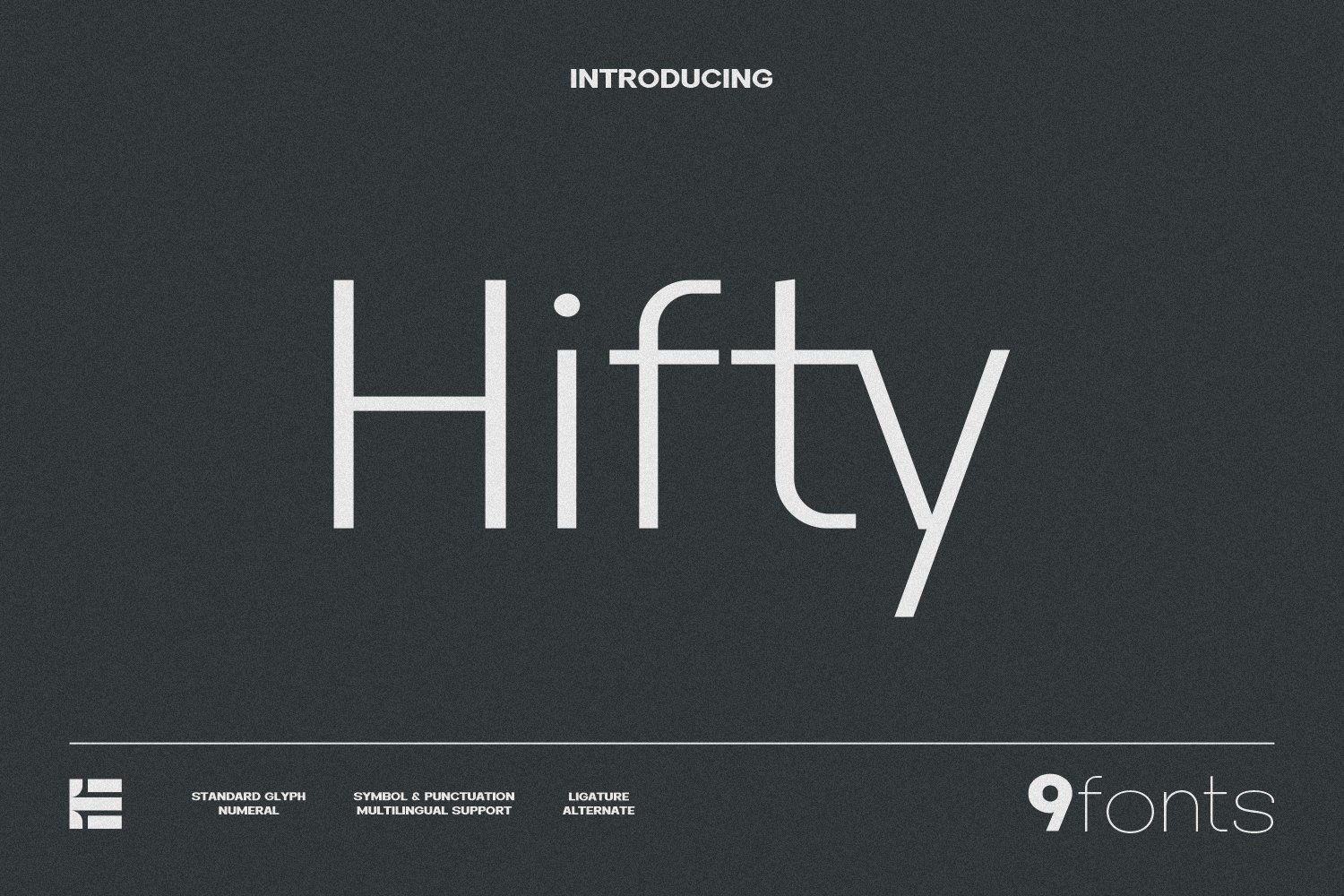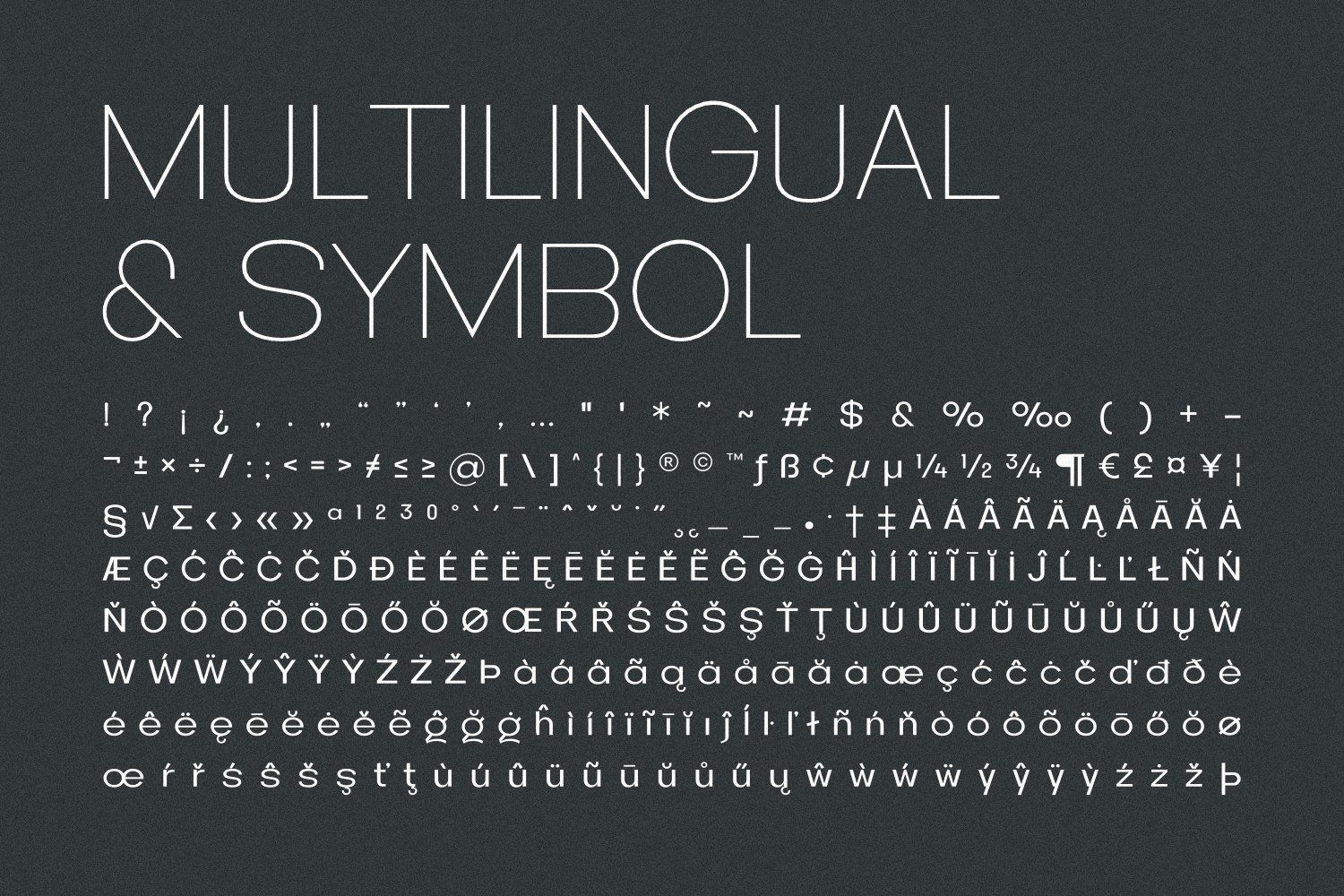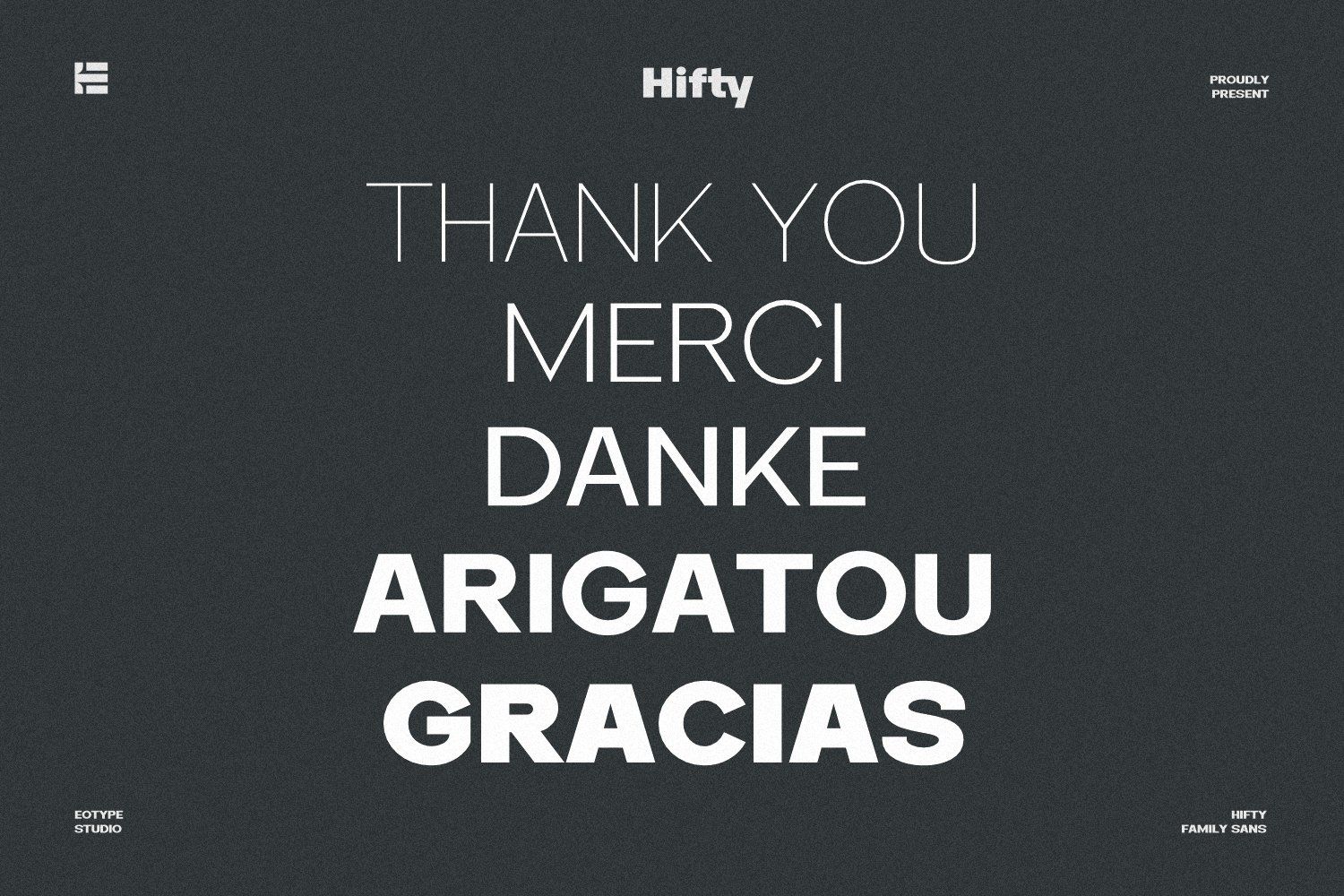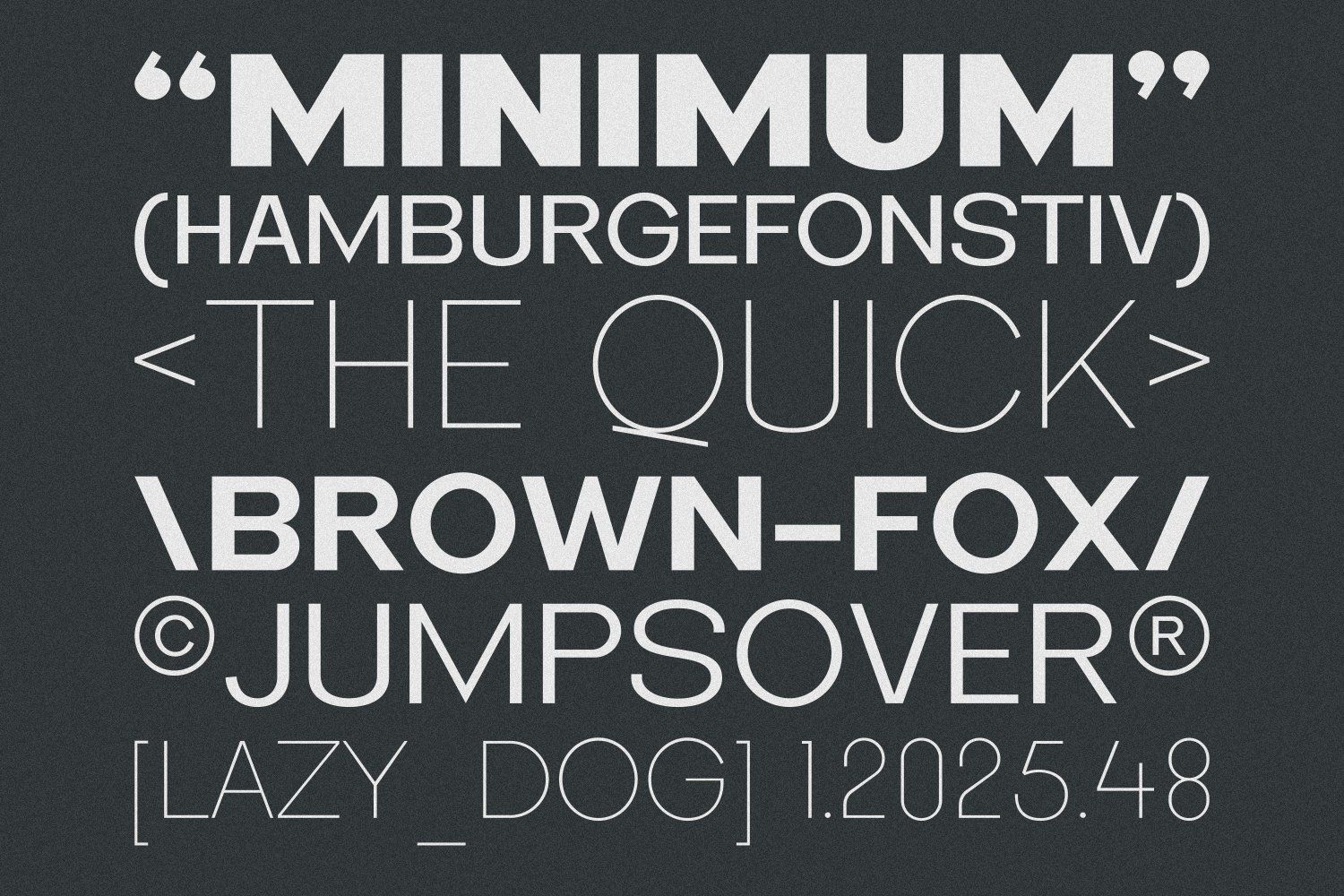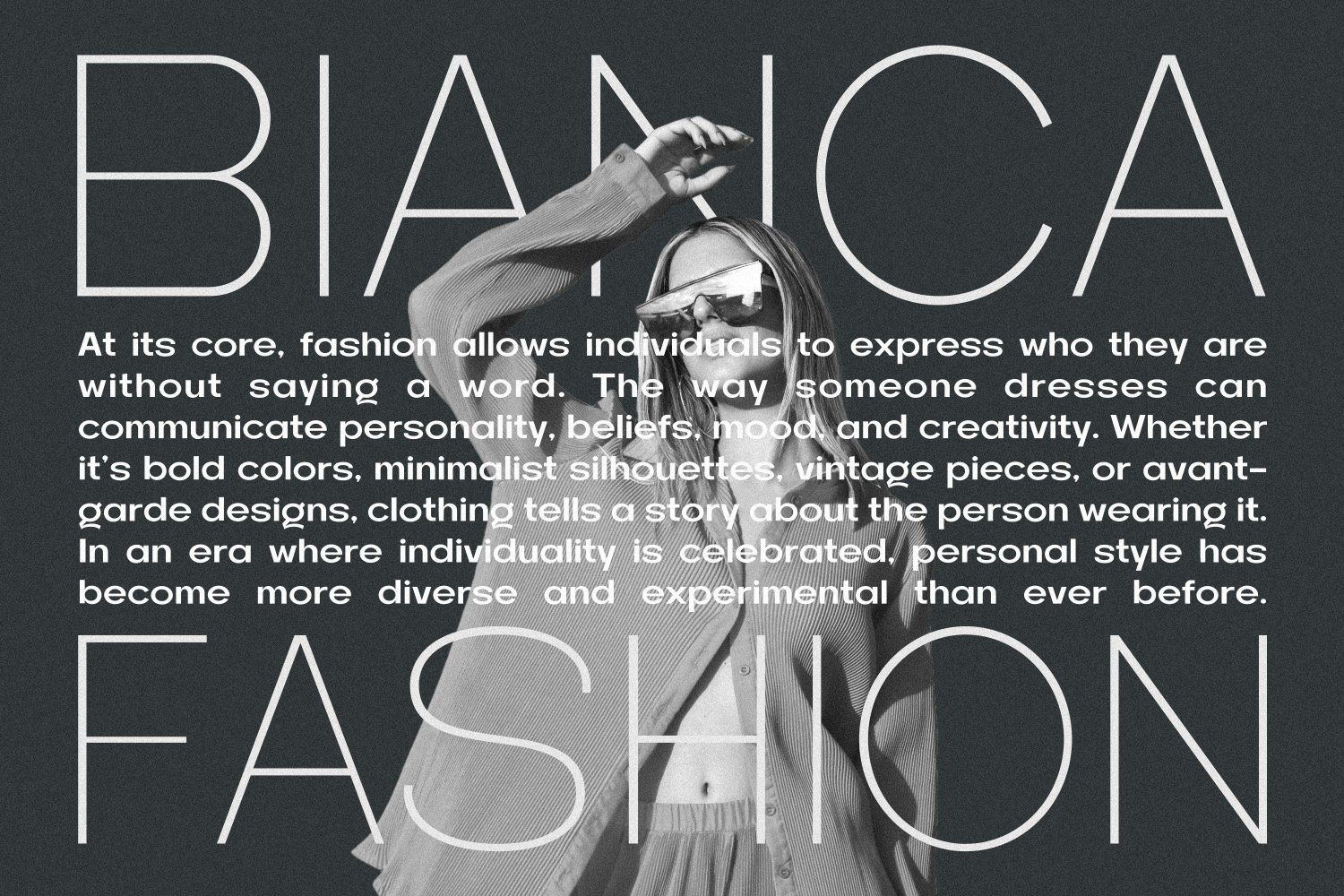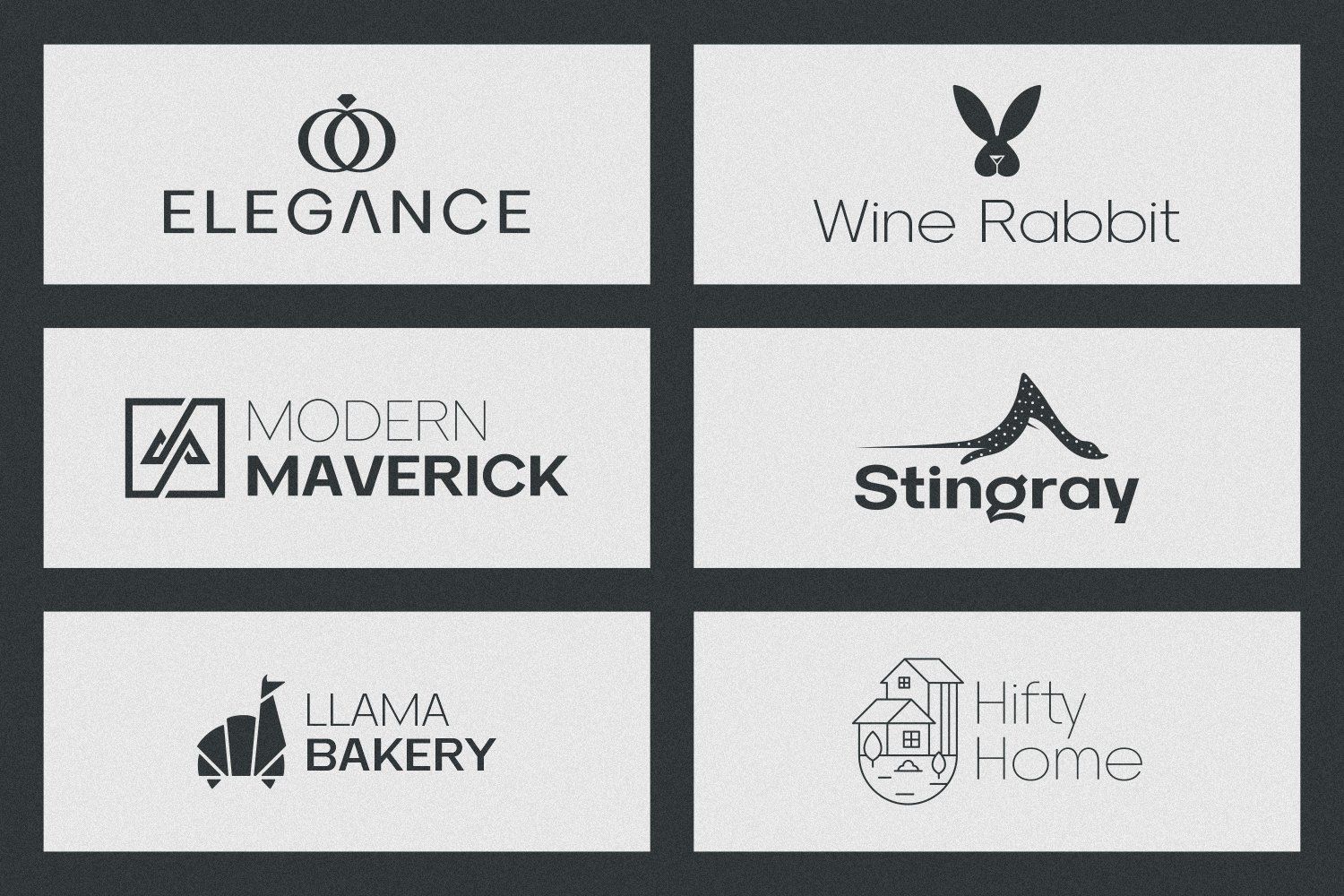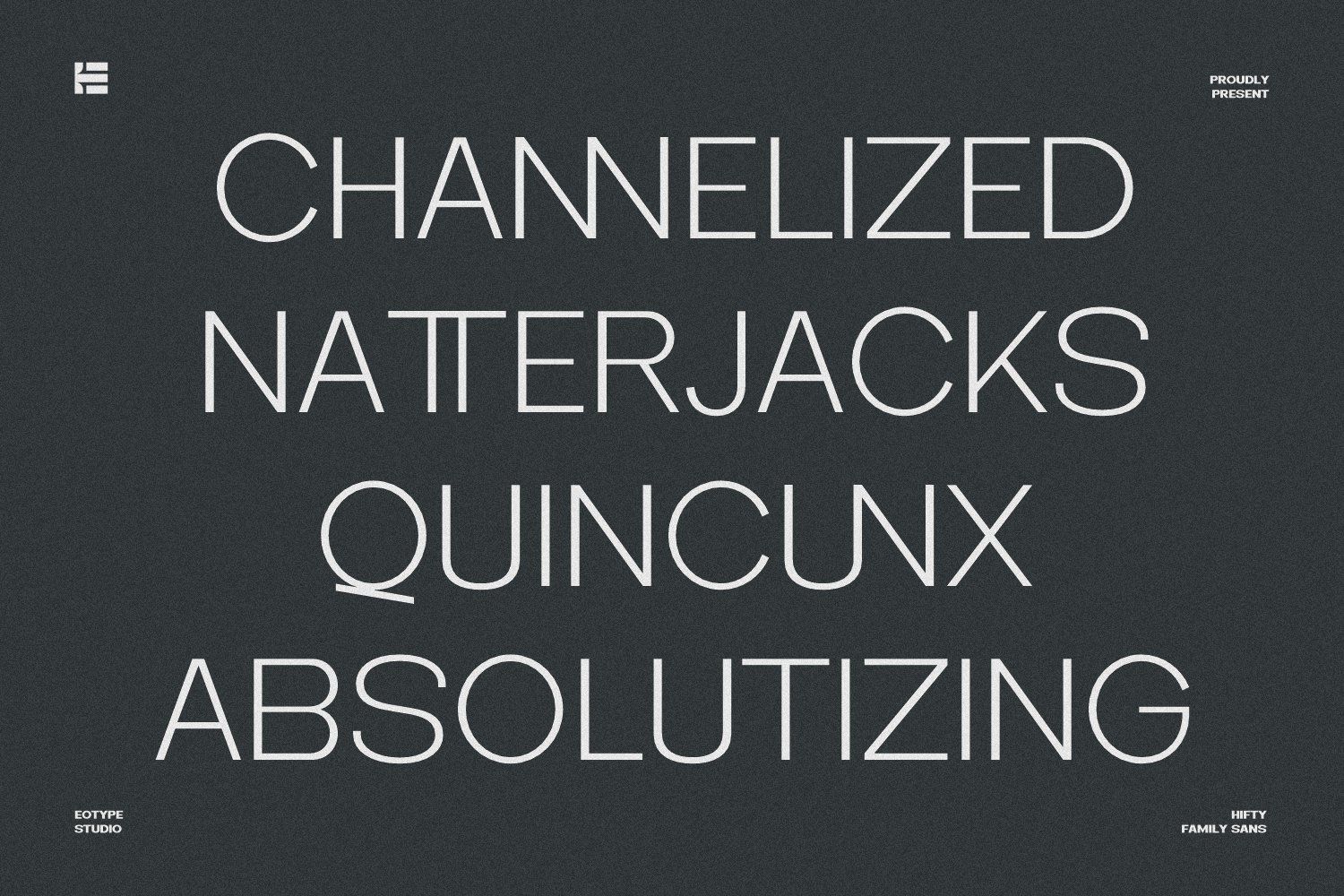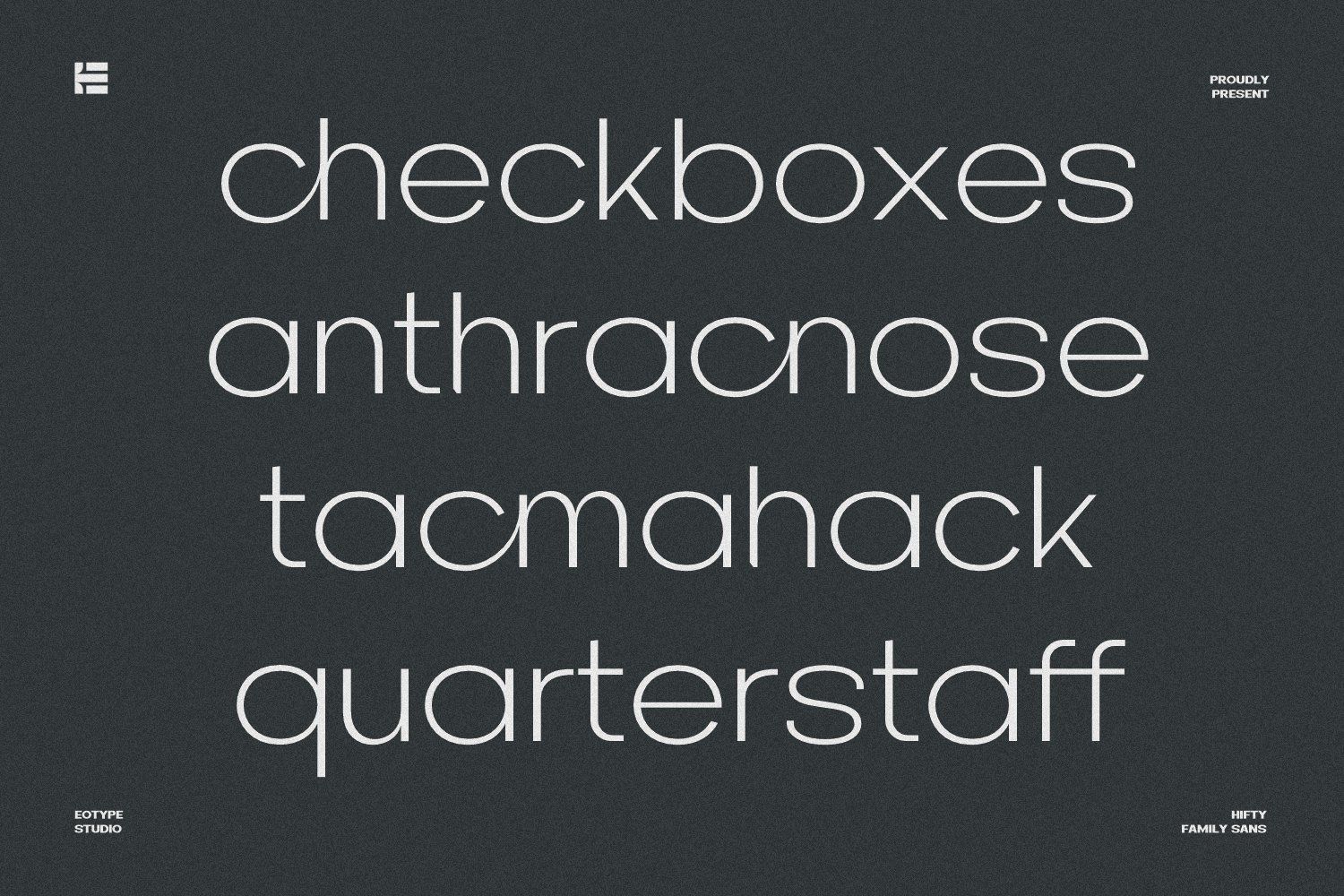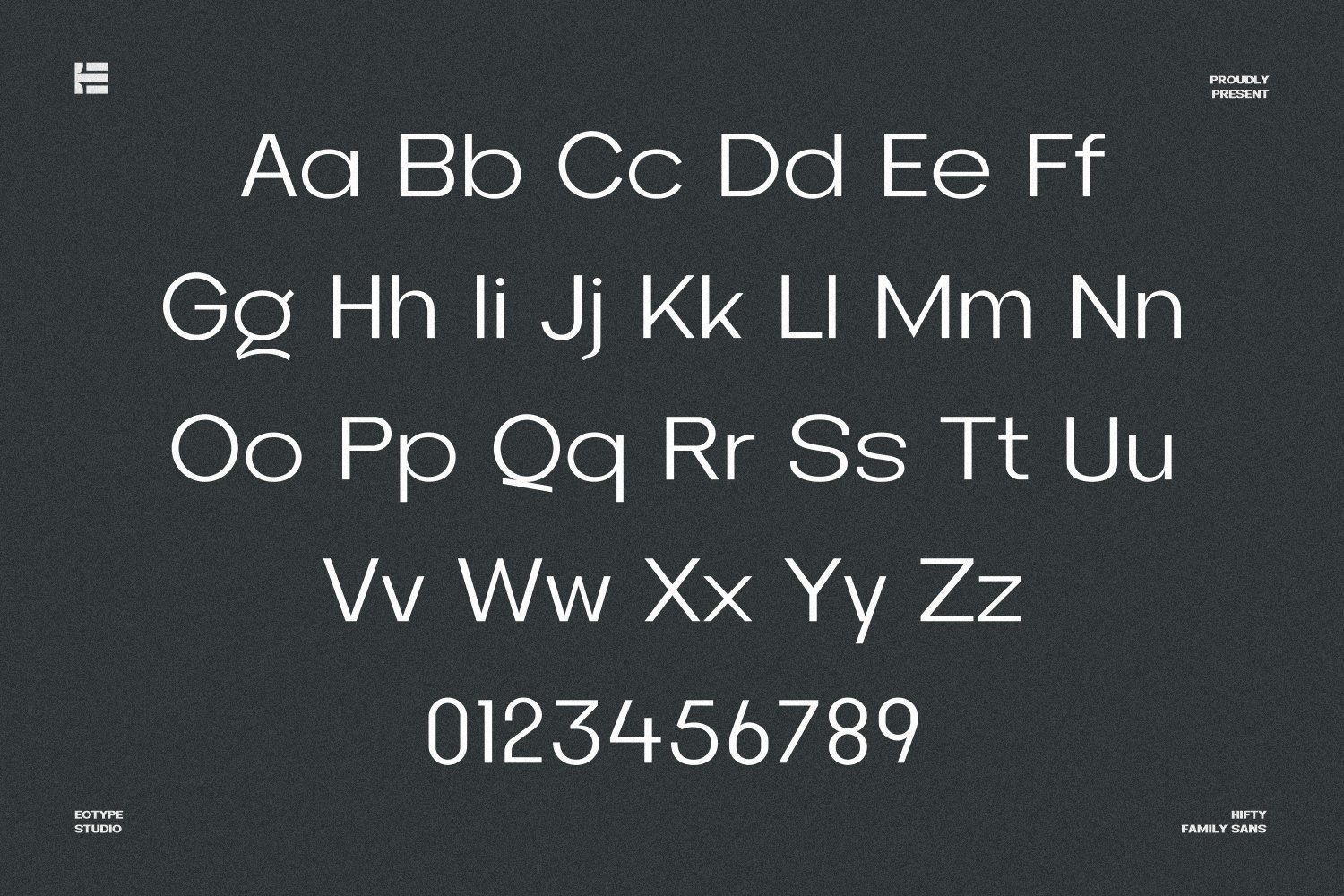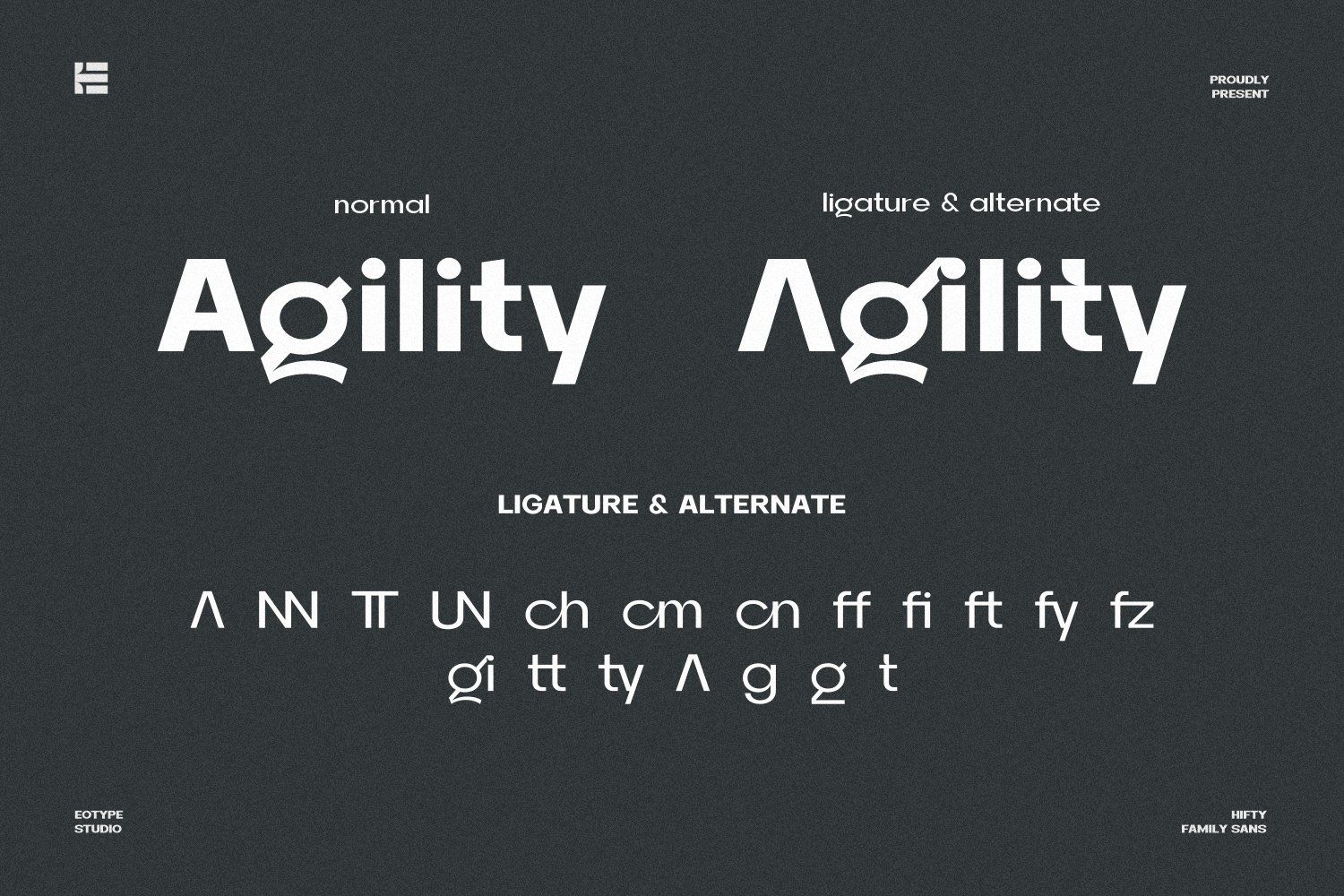
Hifty Sans Serif Font, perfect for modern branding, clean layouts, and bold visual statements. Designed with simplicity and readability in mind, this typeface offers a sleek, contemporary look that seamlessly adapts to both print and digital platforms.
Designed with nine distinct styles, ranging from Thin to Black, this typeface adapts effortlessly to any design need, whether sleek and refined or strong and commanding.
Hifty font features:
9 Weight
Standard Glyph
Stylistic Alternates & Ligatures
Symbol & Punctuation
Multiple Languages Supported.